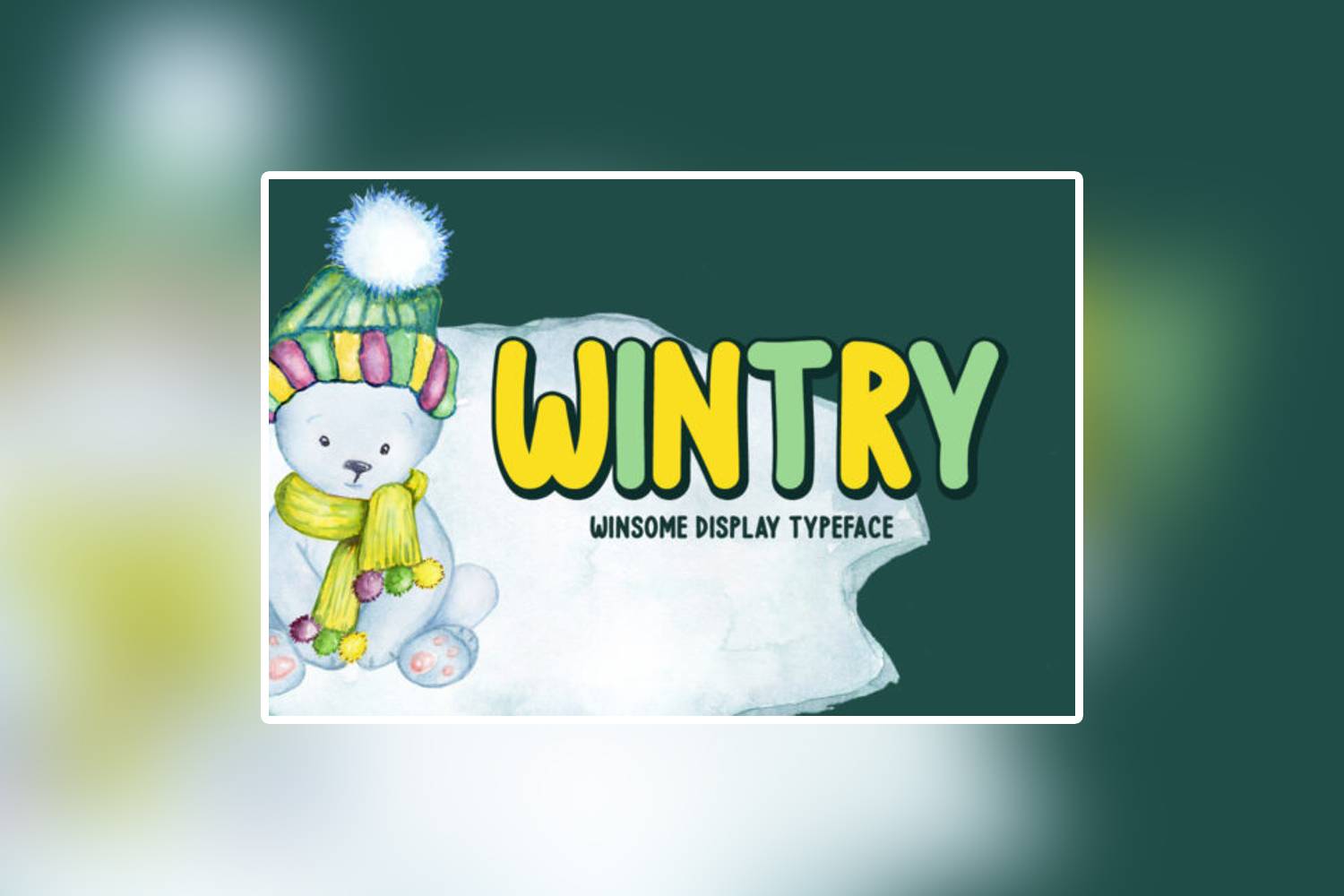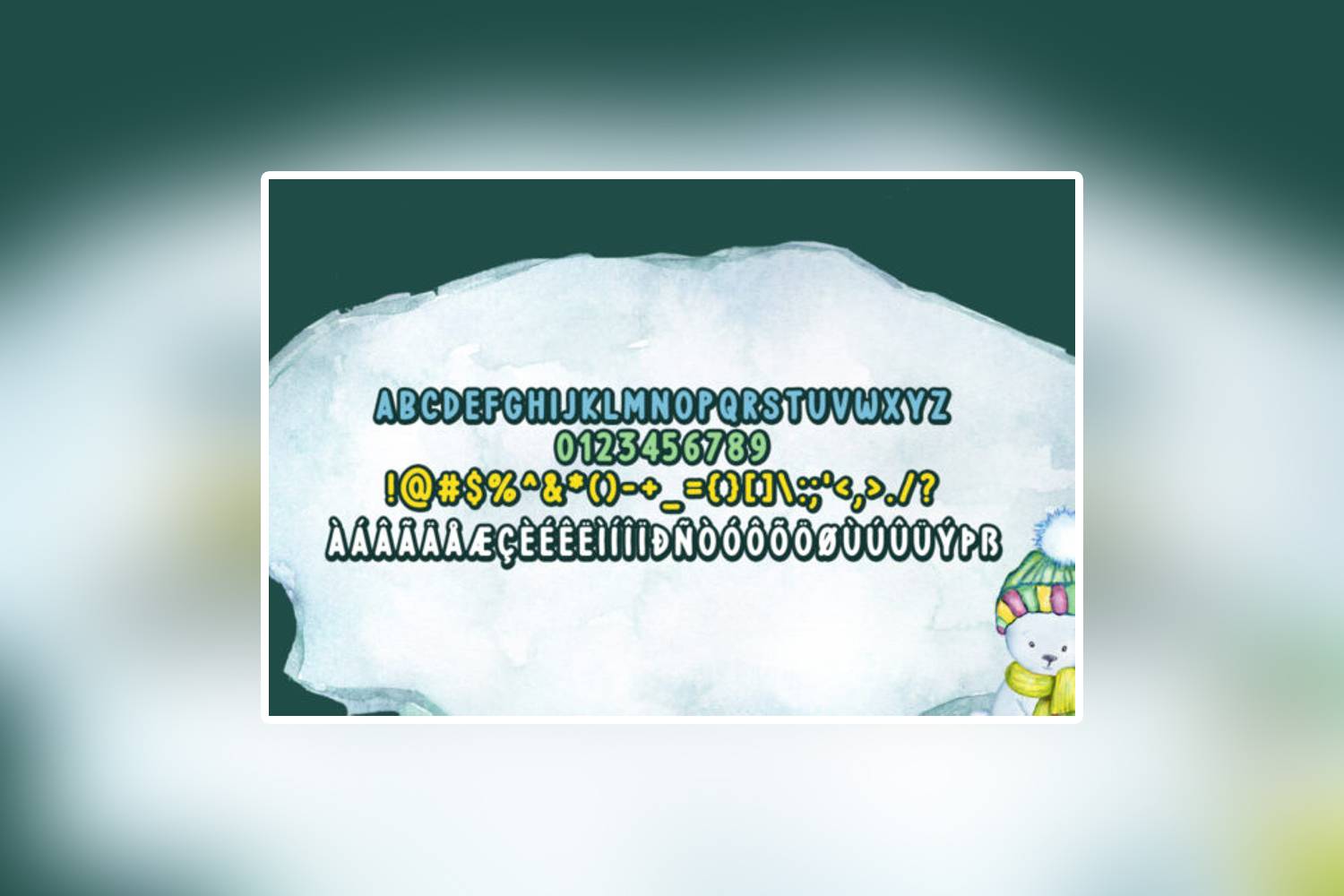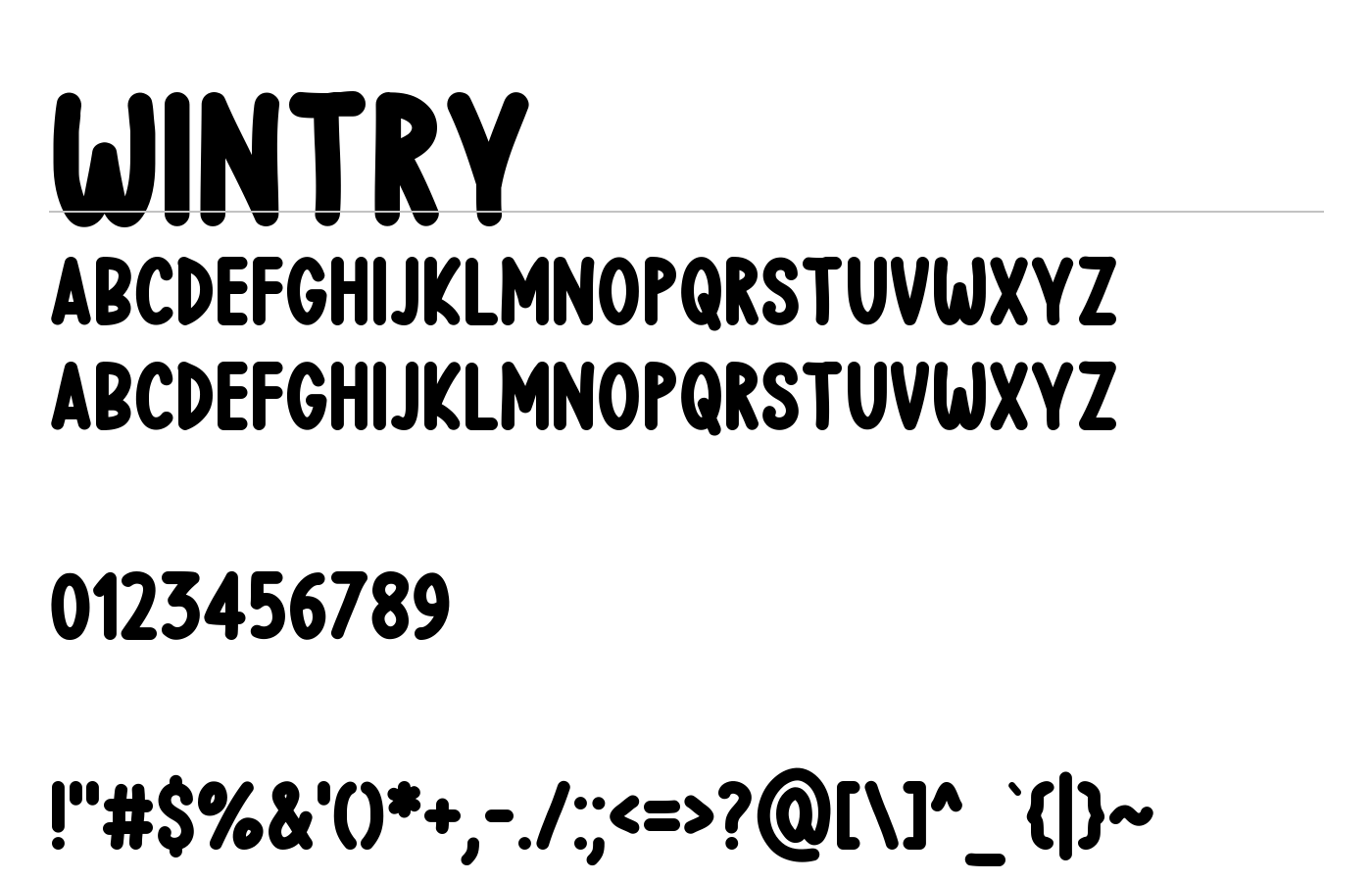
Wintry is a bold, playful sans serif font with rounded strokes and a slightly condensed width, exuding a friendly and approachable vibe. Its tall x-height and smooth, uniform shapes make it highly legible and ideal for casual, fun designs such as children’s books, informal branding, and eye-catching headlines. This font works best where a warm, cheerful personality is desired to create inviting and engaging visual communication.
Wintry Font
About Wintry Font